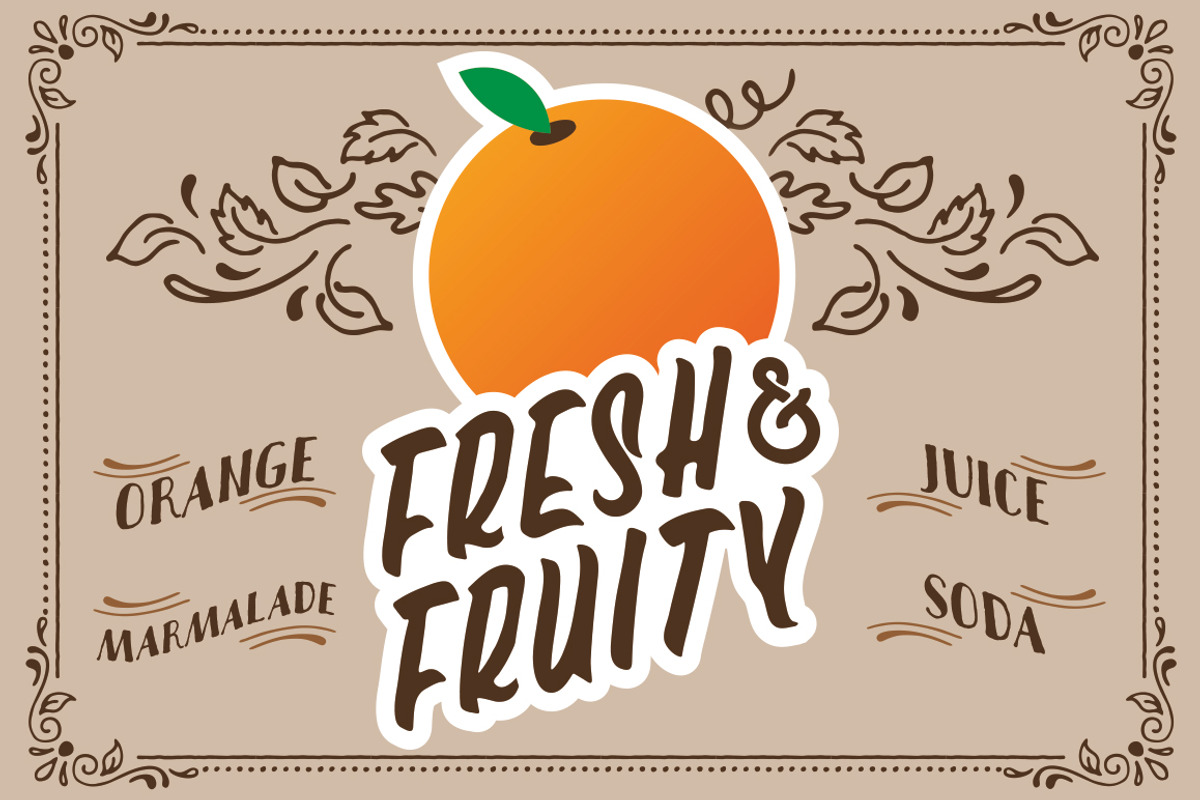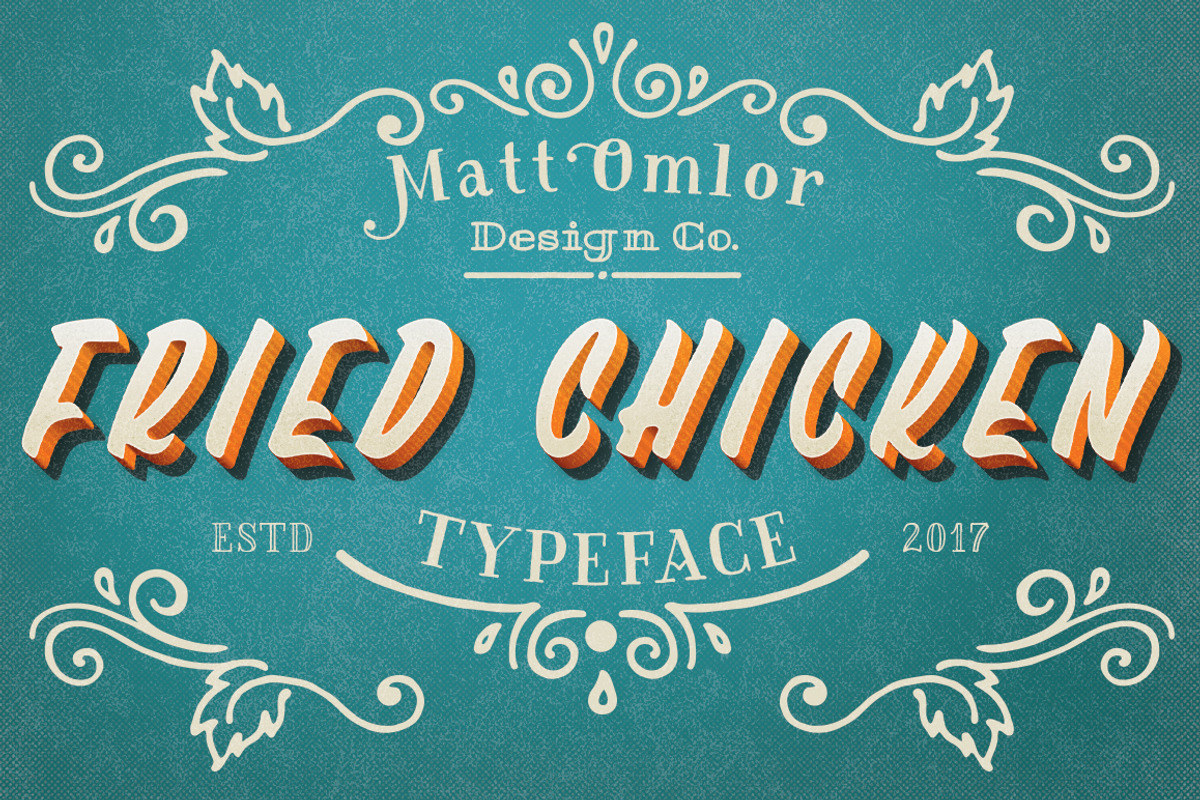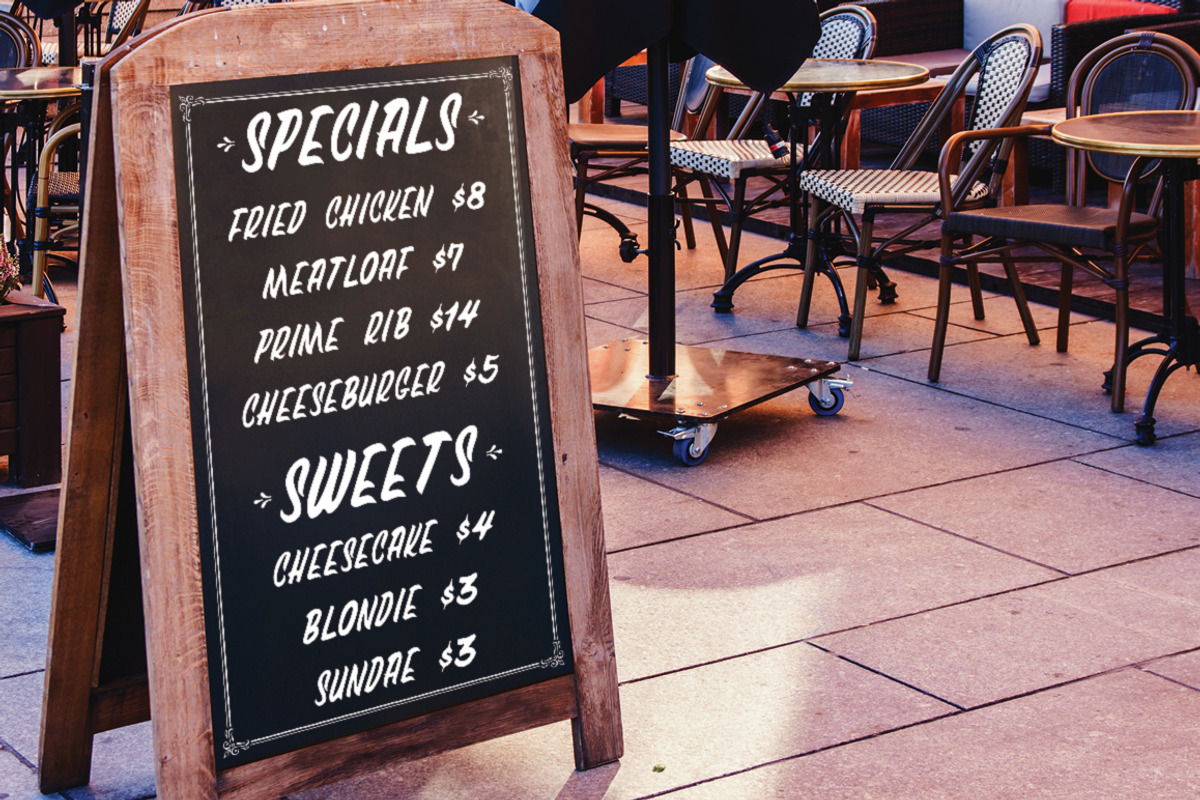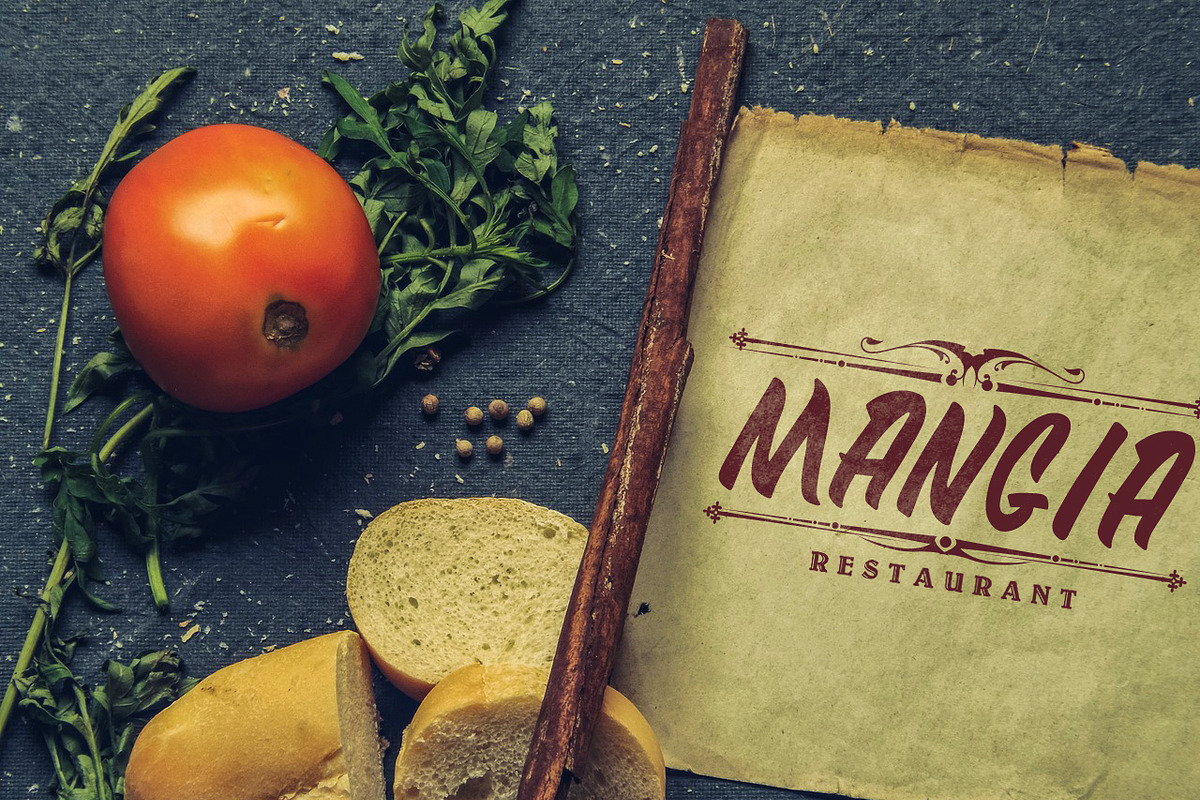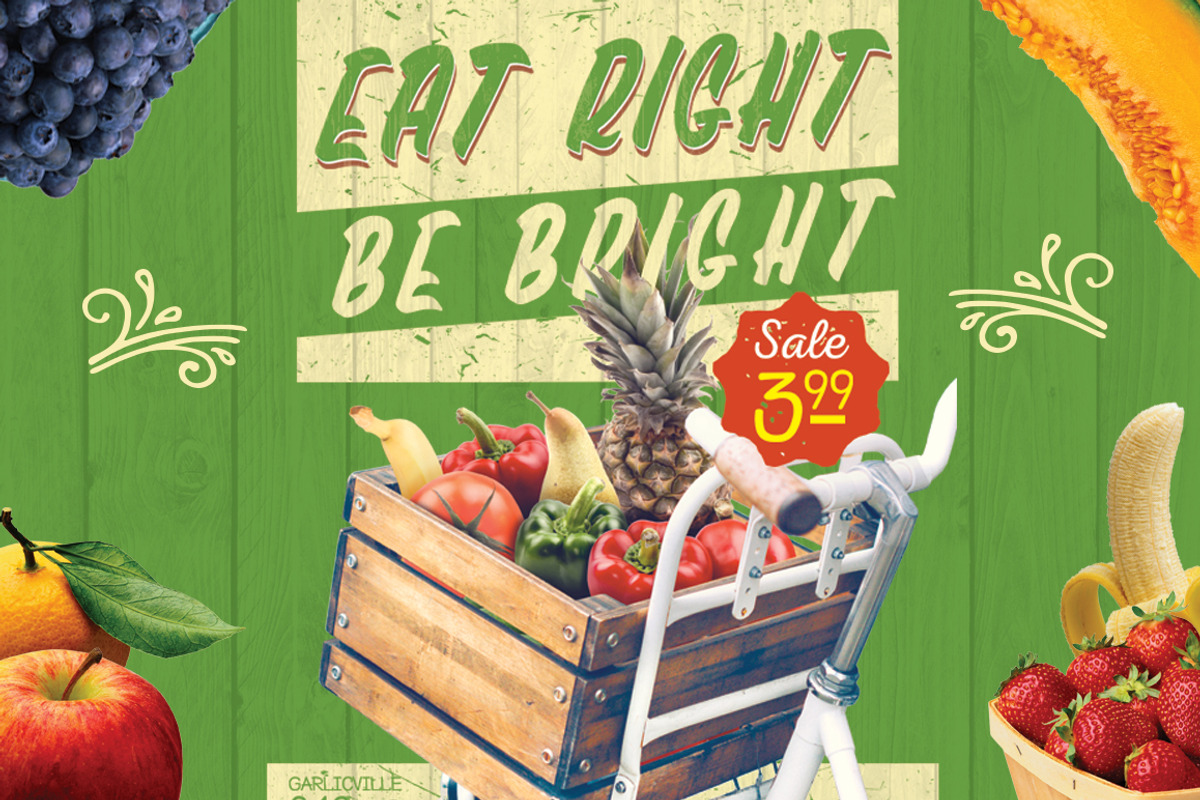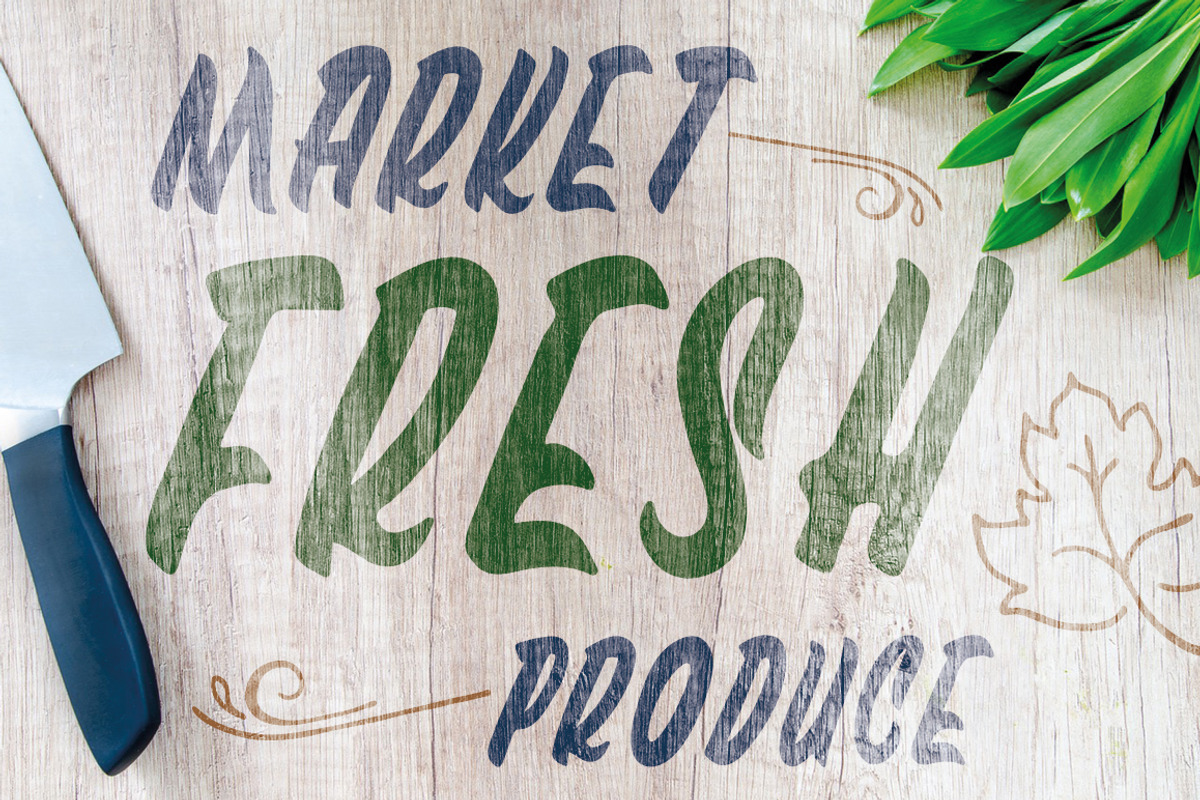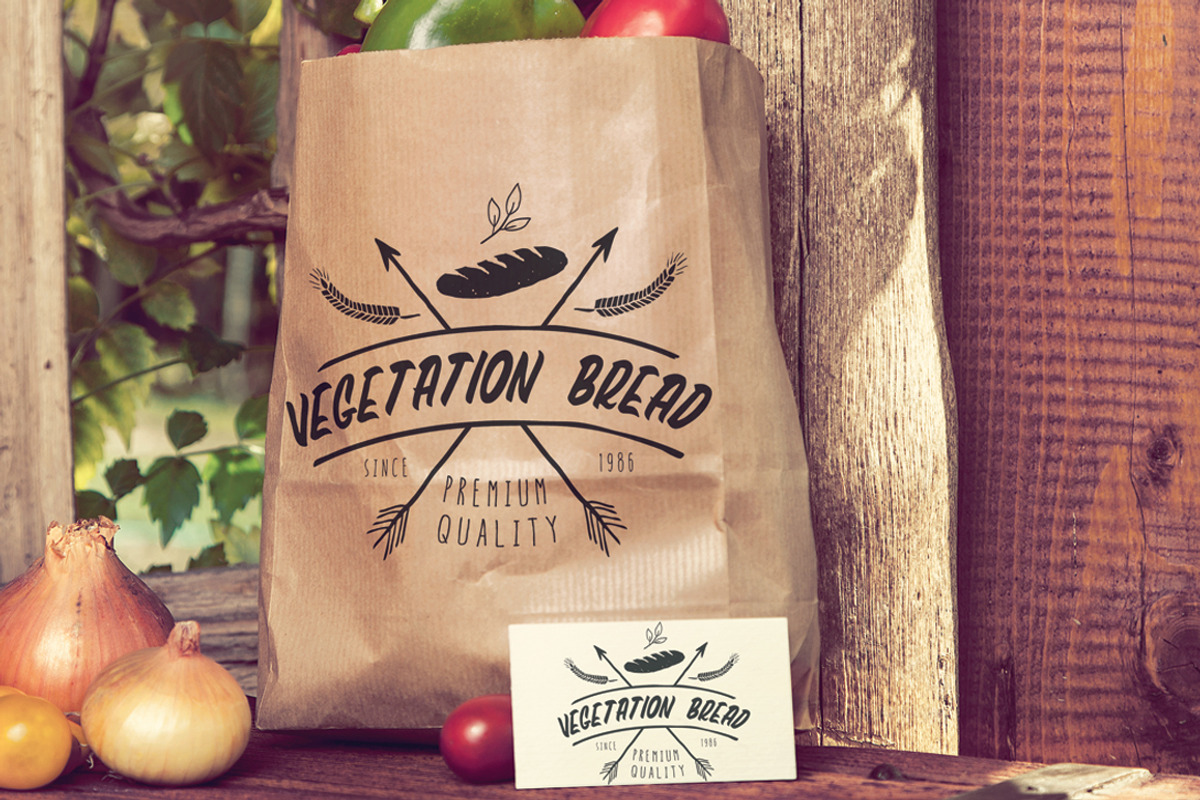
Fried Chicken Typeface
Fried Chicken Typeface by momlor13 is a font selected for branding, posters, packaging, typography.
Why Fried Chicken Typeface is worth a look
Fried Chicken Typeface by momlor13 fits naturally into Branding, posters, packaging, typography.